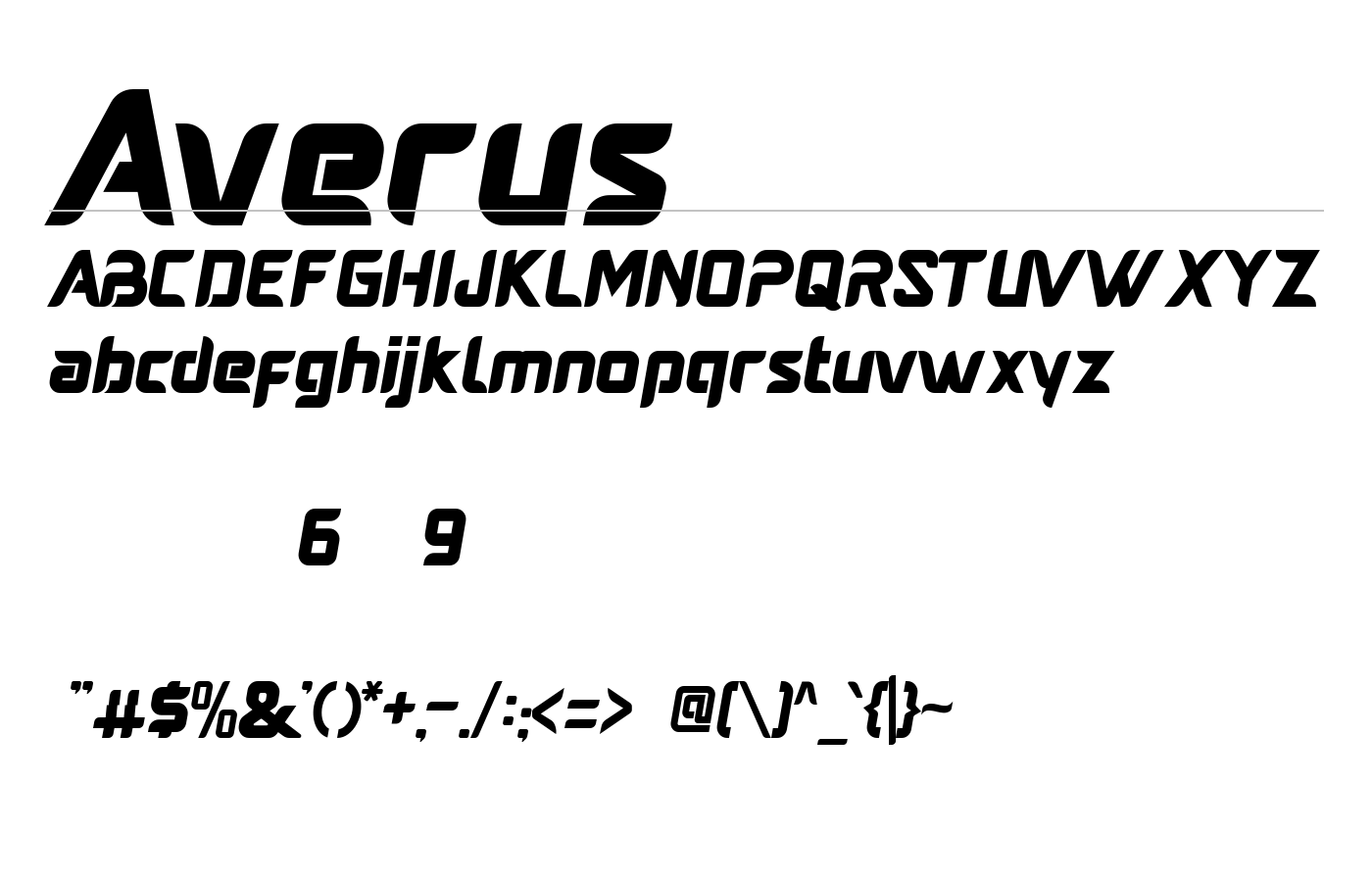
Averus is a bold, modern sans serif font with a distinctively geometric and slightly condensed structure, featuring sharp, angled edges and a dynamic forward slant that suggests movement and energy. Its clean, uniform strokes and single-story letterforms give it a contemporary, sporty feel, ideal for attention-grabbing headlines, branding, and designs that want to communicate strength and speed. This font works especially well for logos, posters, and websites where a sleek, futuristic style is desired.
Averus Font
About Averus Font